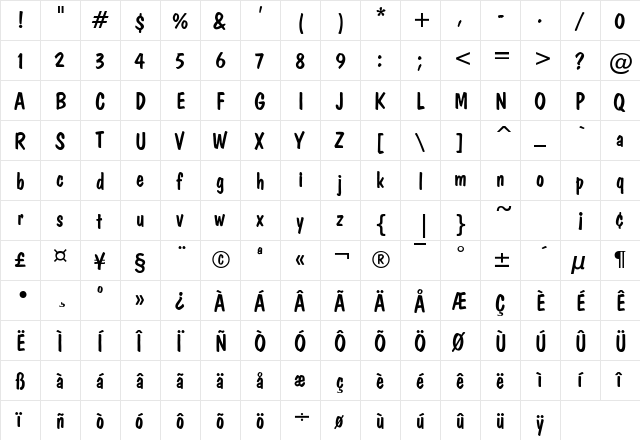
DonCasualSW Plain
Design Context for DonCasualSW Typeface
DonCasualSW is a composed and adaptable typeface that performs quietly and consistently across a wide range of design contexts.